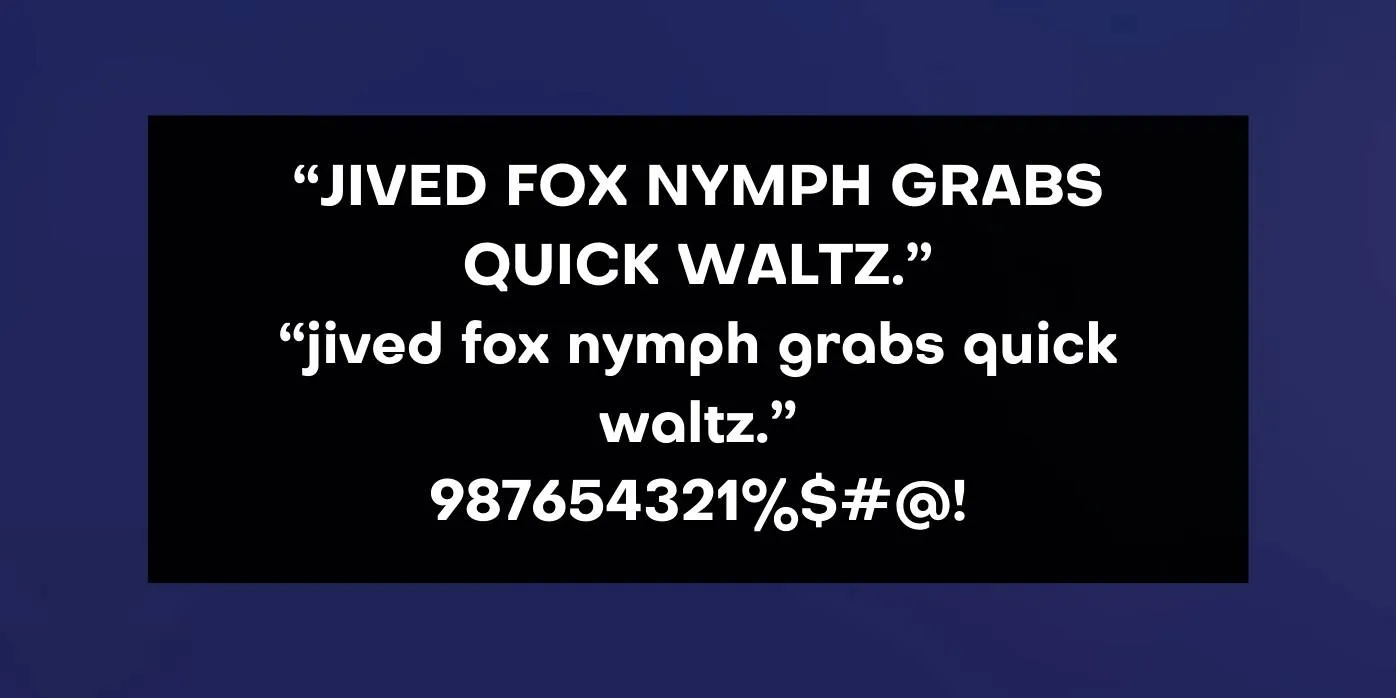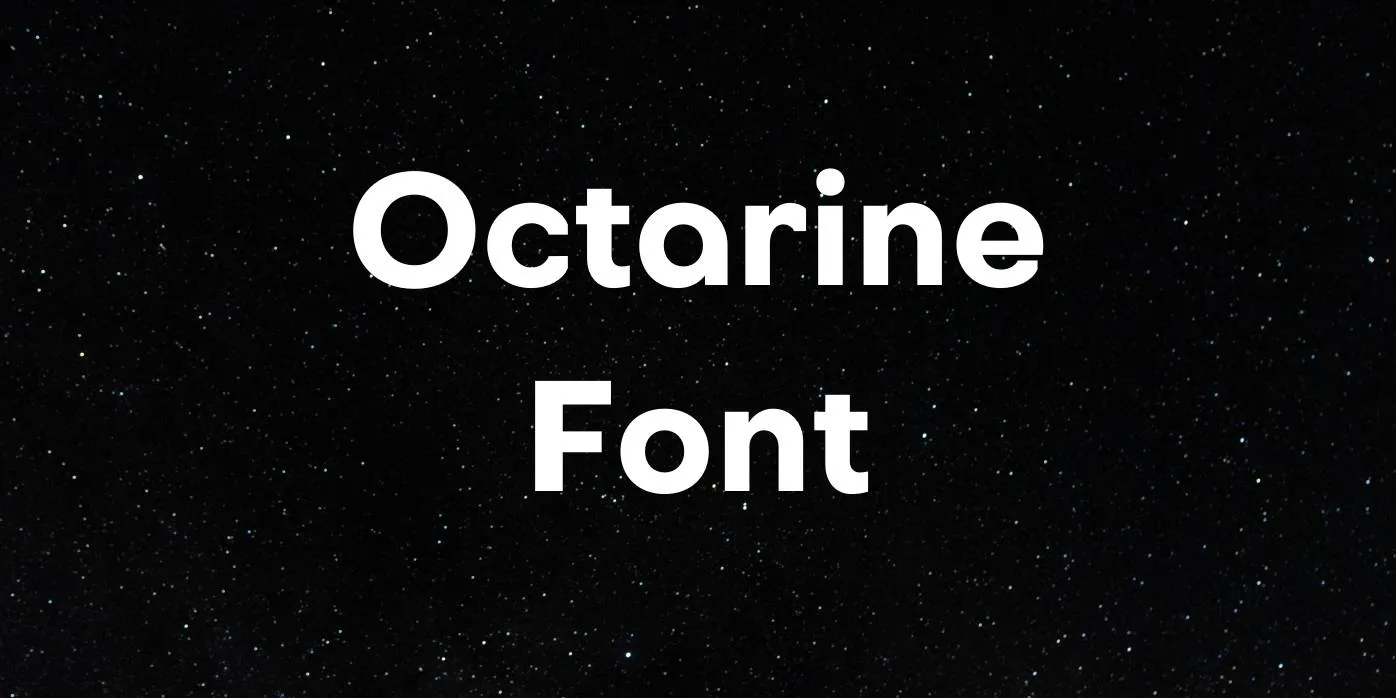
Octarine Font
Octarine Font is a popular font among designers. It is known for its unique and stylish appearance. This Font was created by designer Matthew Carter in 1996. The font is named after the color octarine, which is a mix of blue and green.
This font has been used by many famous brands. The typeface family supports lots of foreign languages and seems better when you pair it with another decorative typeface like salmon script font an elegant handwritten style font with a simple attractive visual. The glyph of this font is very unusual and interesting. This Font was inspired by the work of Dutch typeface designer Dirk Rees.
This font is available in two weights, Regular and Bold. It also includes an italic version. This font is a great choice for any design project that needs a touch of uniqueness.